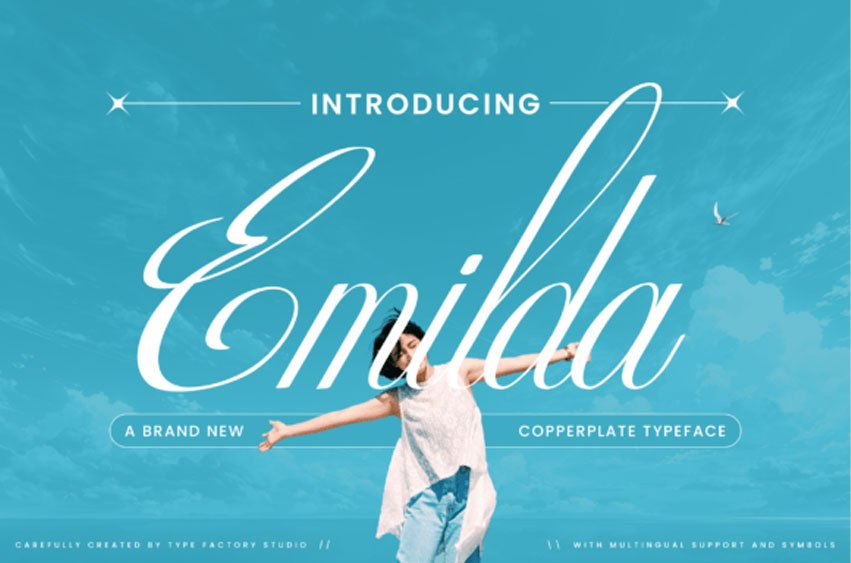
Emilda Font is an copperplate-style script typeface featuring flowing curves, refined strokes, and graceful letter connections. Inspired by classic calligraphy, this typeface delivers a sophisticated and expressive look while maintaining readability across various design applications.
The smooth transitions and delicate contrasts make it ideal for projects that require a personal and artistic touch. Its letterforms are carefully crafted to create natural rhythm and harmony, making it suitable for both short headlines and decorative text compositions.
Emilda works beautifully for wedding invitations, branding, logos, packaging, editorial layouts, and social media content that need a timeless and expressive script style.